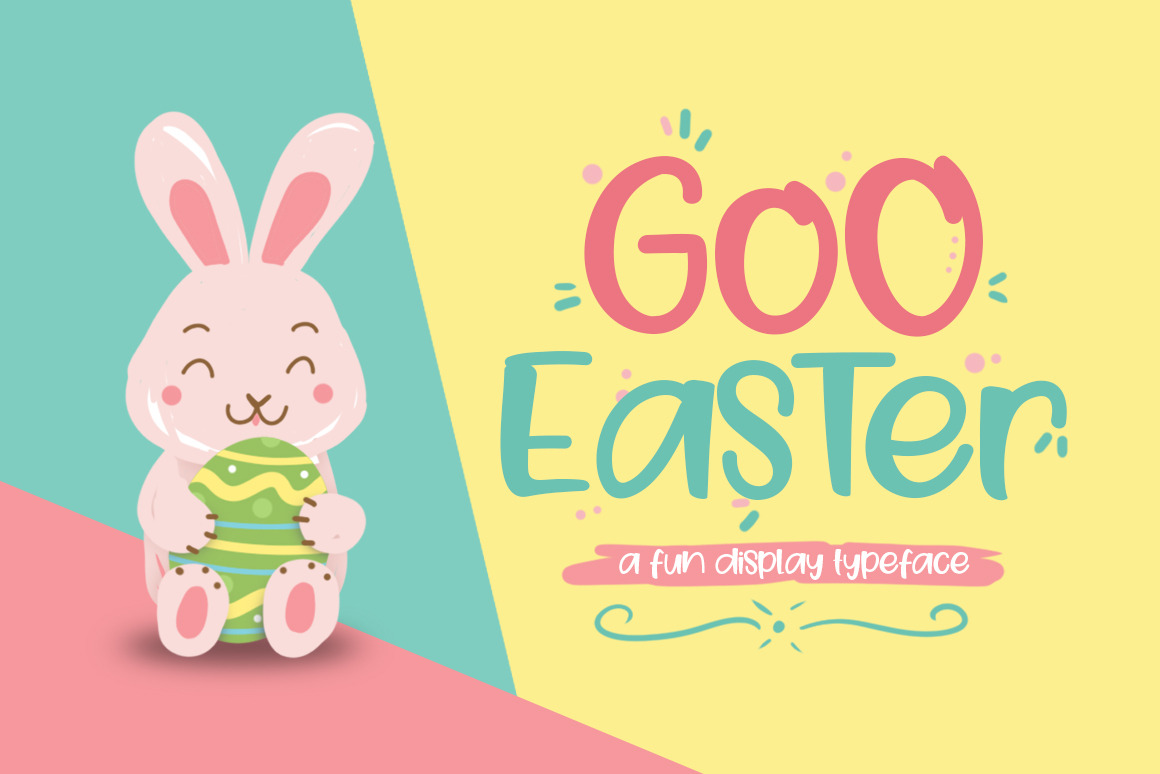
Goo Easter Font
Introducing, Goo Easter font a modern display typeface with cheerful theme for your fun project. Goo Easter display font suitable for logo, branding, greeting card, poster and any design that you create.